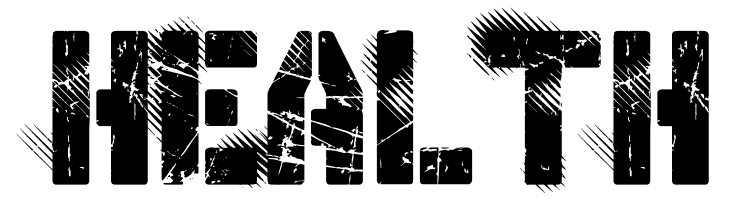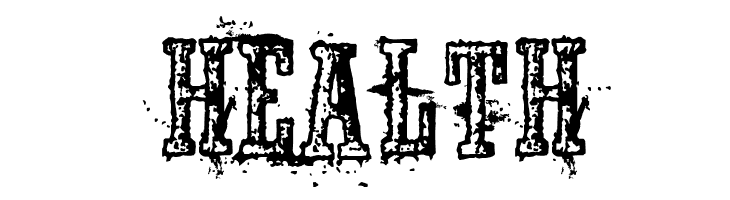
A bold, distressed font with a rugged, grunge texture.
A bold, distressed font with a glitch-like, digital interference style.
A bold, distressed stencil font with an industrial and gritty aesthetic.
A bold, distressed font with a rough, textured appearance.
A bold, distressed font with a gritty, textured appearance.
A bold, distressed font with a gritty, urban style.
A bold, distressed font with a halftone pattern for a gritty, urban look.
A bold, distressed font with a vintage, rugged appearance.
A bold, distressed serif font with a vintage, grunge aesthetic.